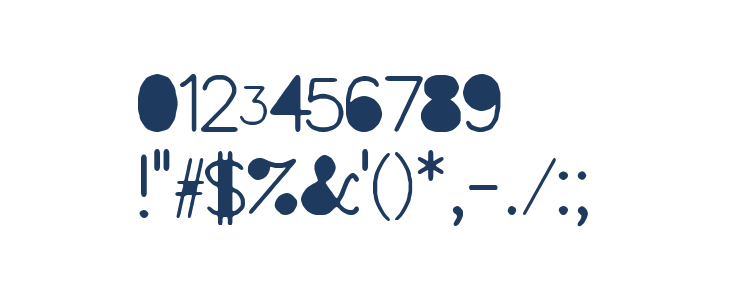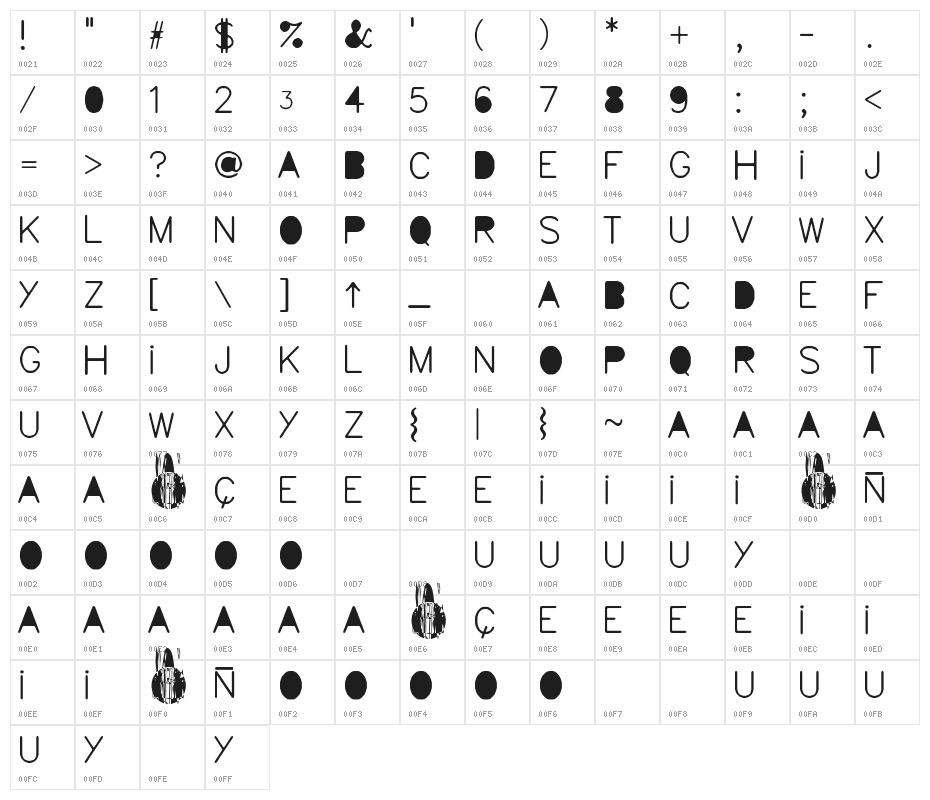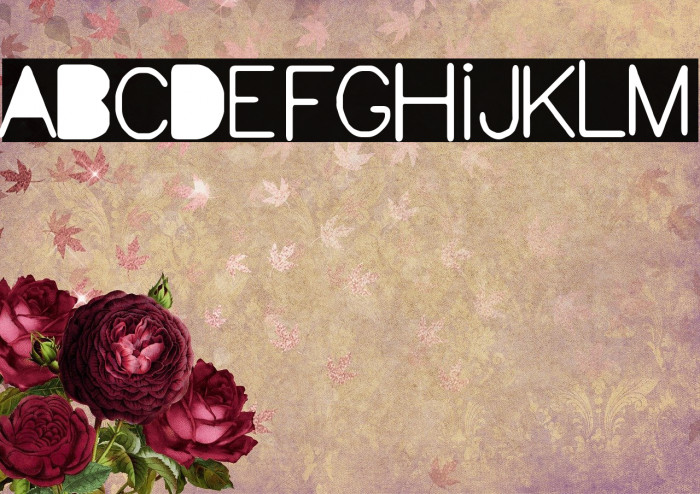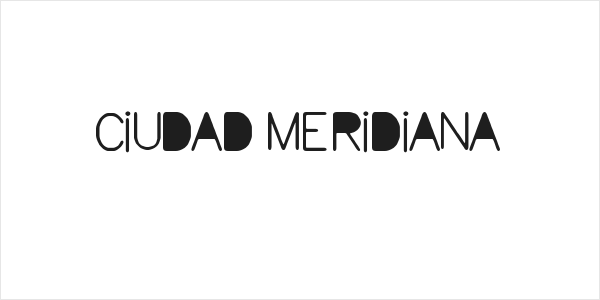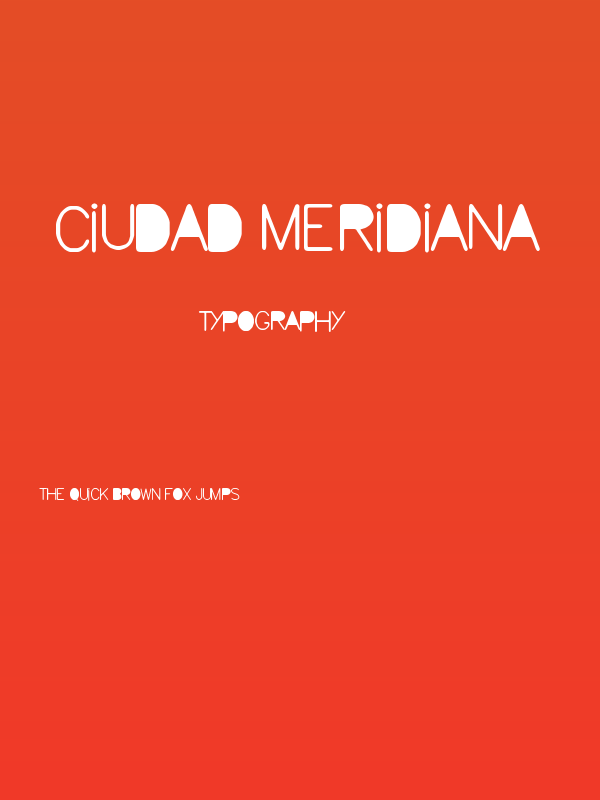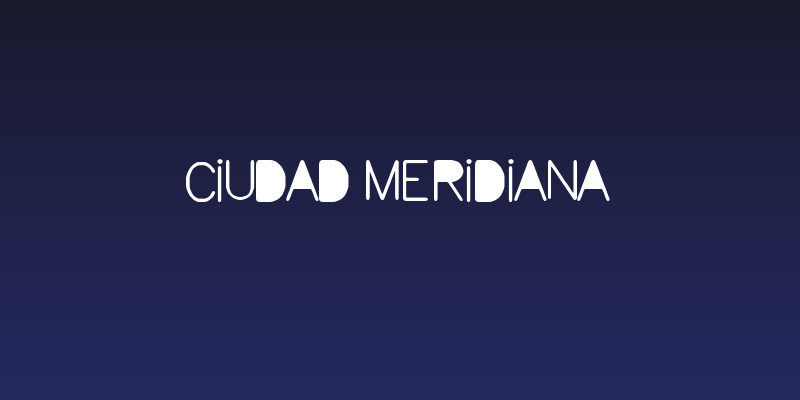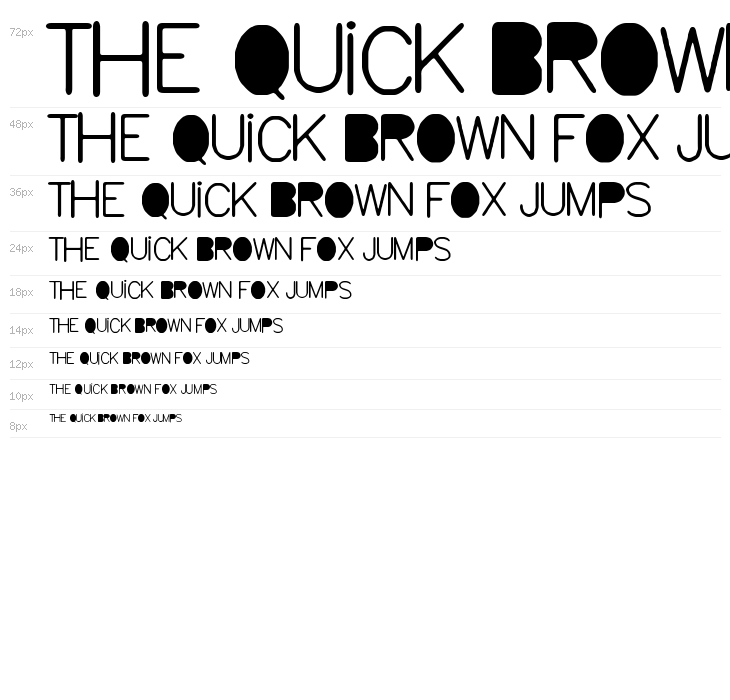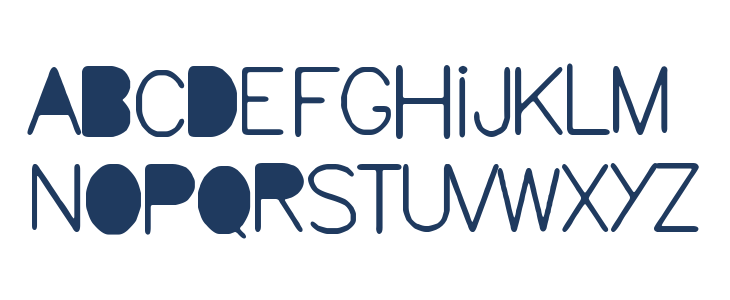
Ciudad Meridiana Font
Ciudad Meridiana Description
This font features a unique blend of geometric and organic shapes, creating a modern and playful aesthetic. The uppercase letters are bold and rounded, with some characters like 'B', 'P', and 'R' having a distinctive filled-in style that adds a quirky touch. The lowercase letters maintain a consistent style, with smooth curves and a slightly condensed form. Numbers are bold and rounded, matching the style of the uppercase letters. Special characters are creatively designed, with symbols like '&' and '%' having a playful, artistic flair. Overall, this font is eye-catching and ideal for projects that require a modern and fun look.